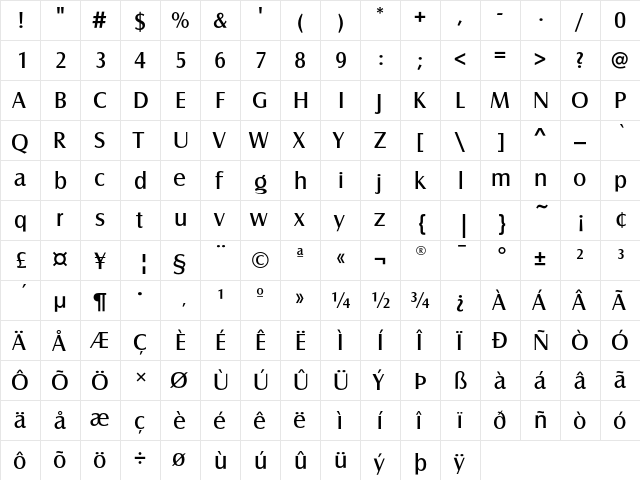
CastleEF Book
Design Context for CastleEF Typeface
CastleEF offers clean, dependable letterforms without strong stylistic allegiance, making it a practical choice for designers who need flexibility.
Pro Tip: Pair CastleEF with a font of contrasting weight or personality to build a more expressive typographic hierarchy.